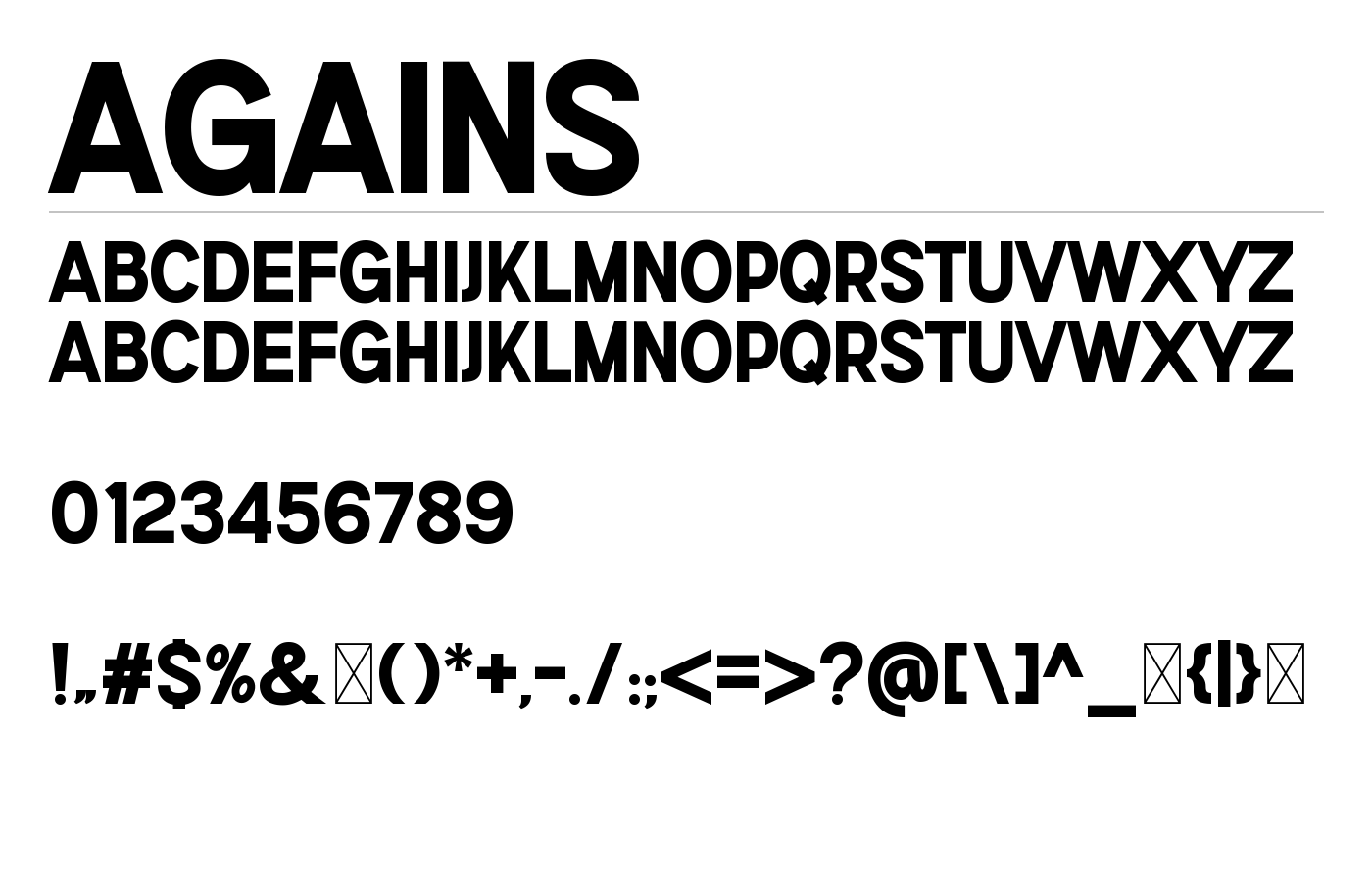
Agains is a bold, sans serif typeface characterized by its strong, clean lines and geometric shapes, making it highly legible and modern. Its sturdy, uniform strokes and wide letterforms give it a confident and impactful presence, ideal for attention-grabbing headlines, branding, and editorial use where clarity and strength are key.
Agains Font
About Agains Font
| Designer | Usman Albaehaqi |